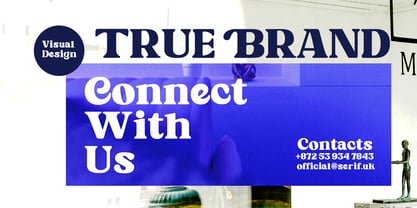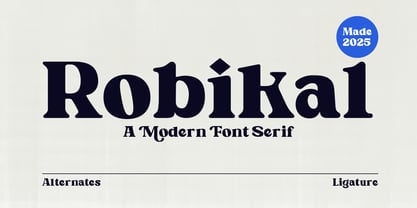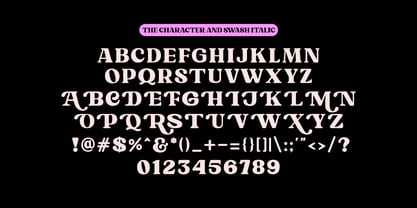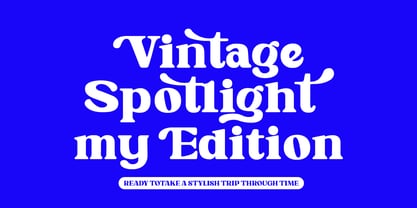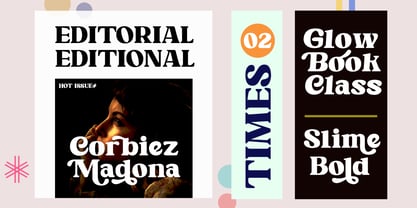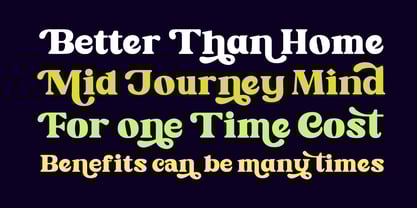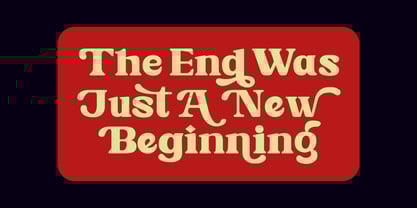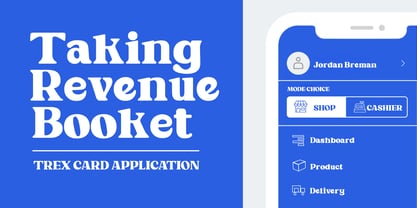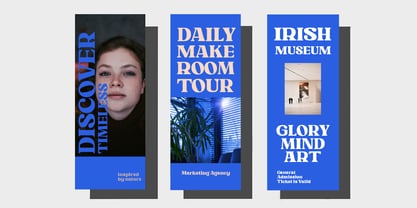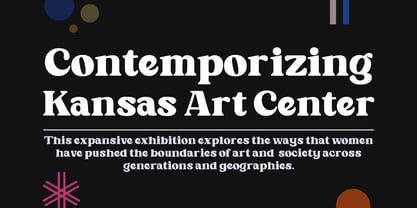
Robikal
Die Schriftfamilie Robikal wurde von Bebby Lutfitharina entworfen und von Fontastic Lab veröffentlicht. Robikal enthält 2 Stile und Familienpaketoptionen. Mehr über diese Familie
Robikal serif font with a series of alternate Bold styles that vary Regular and Italic. This font is a clean, versatile blend for use in big dreams in creating designs that offer a clear, upright typeface for a strong front at large sizes and easy to read in free-form text; Complementing its flexibility, this typeface offers accessible Swaash and alternates through a series of open letter styles, further expanding its expressive potential for any design project.